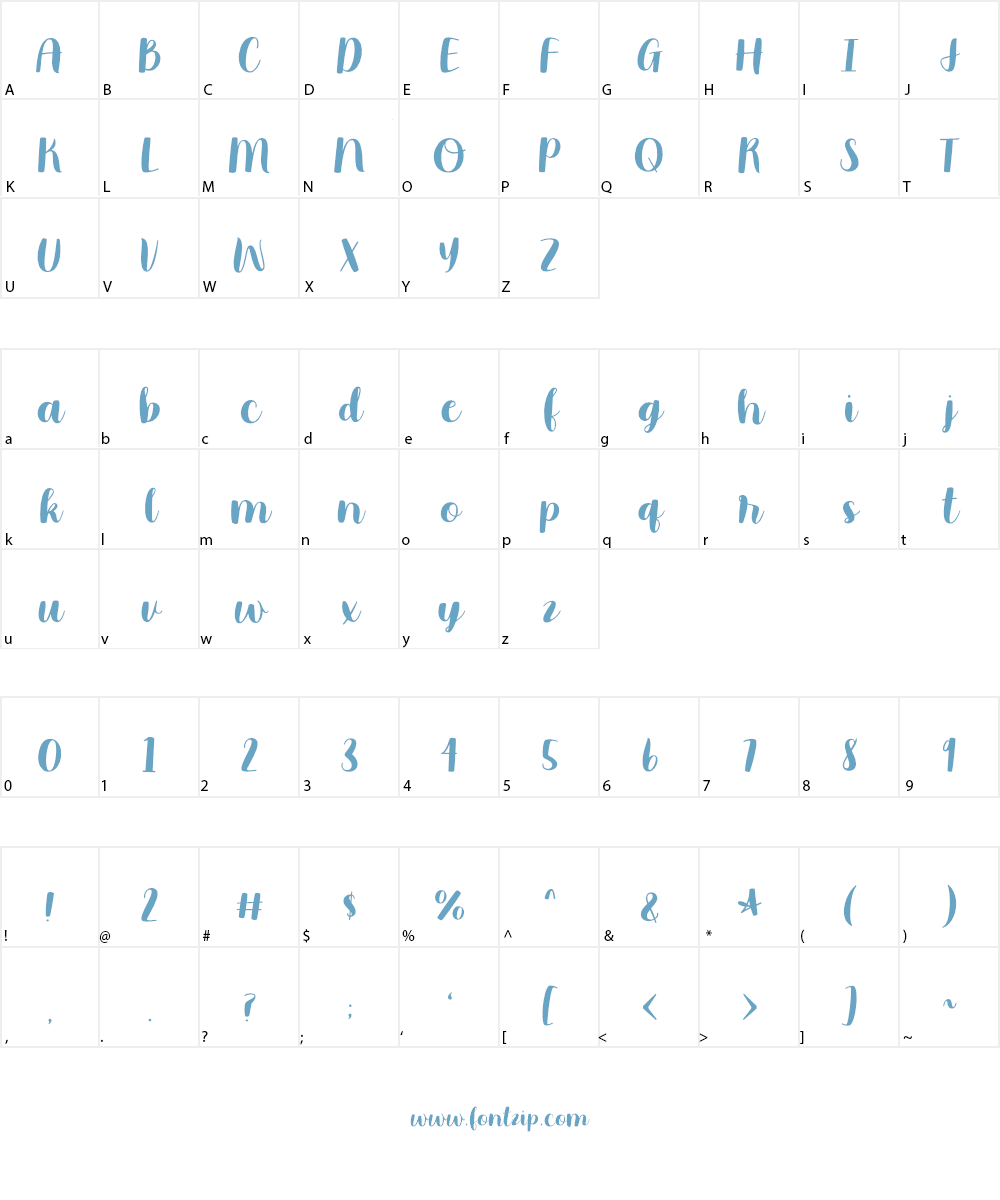
Moonbright is a cute, chunky script font. Includes most Latin-based foreign language support (see images for accented letters included). Great for headlines or decor!